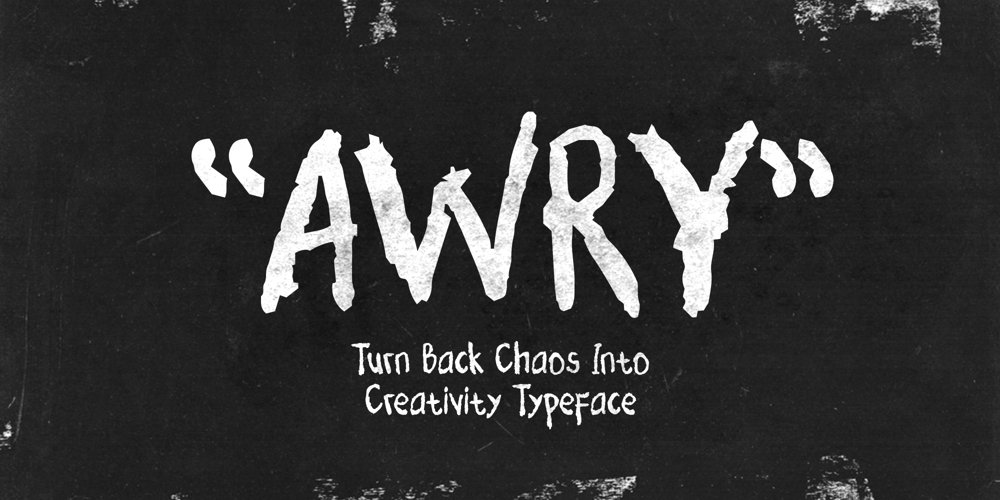
Awry Font Family was designed by Gholib Tammami and published by Gholib Tammami. Awry contains 1 styles and family package options. Awry is a cute and quirky handwritten font that elegantly dances on the edges of organized precision and captivating disorder. With its unique design, ‘Awry’ breaks free from the confines of traditional typography, inviting you to explore a world where imperfection becomes an art form.